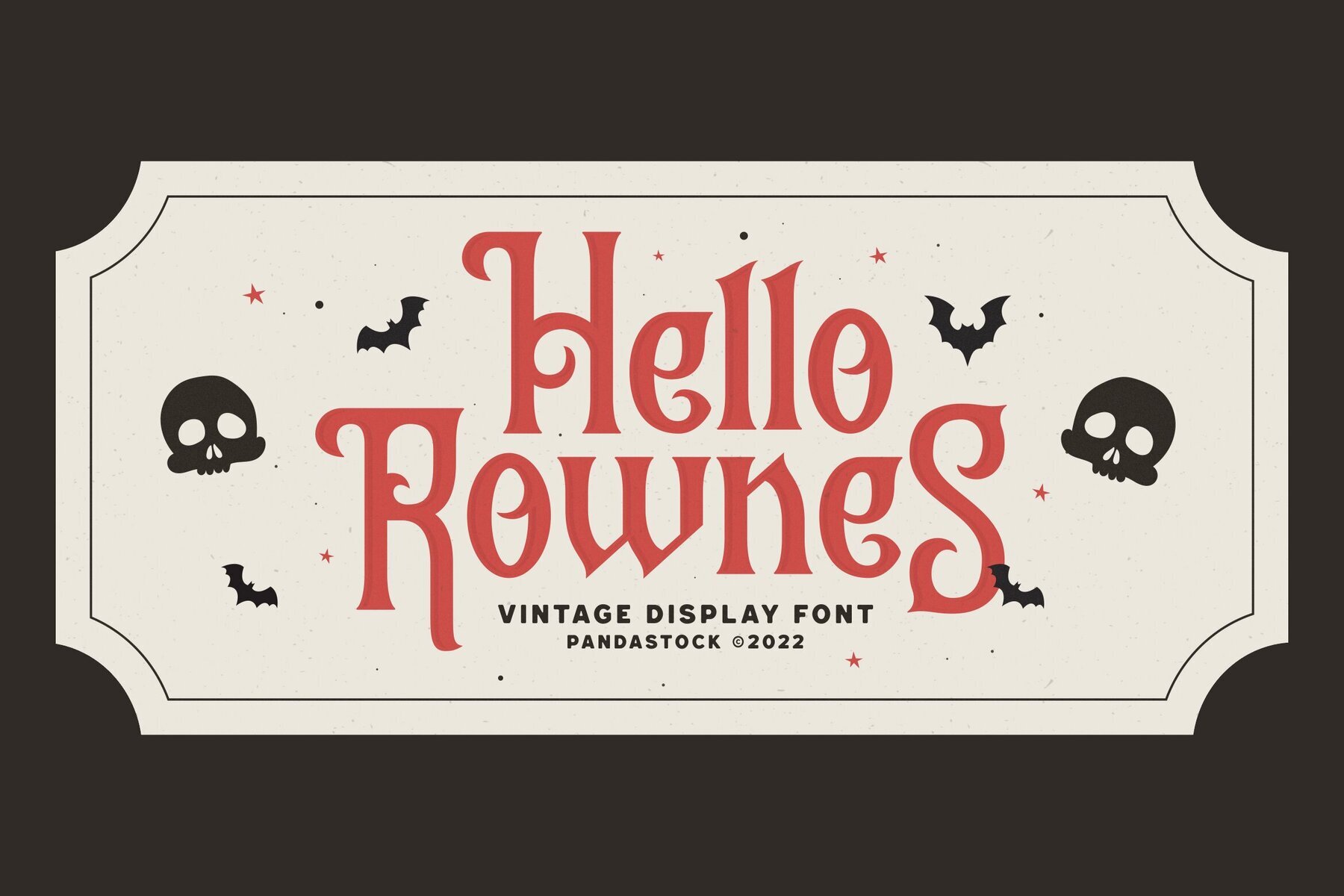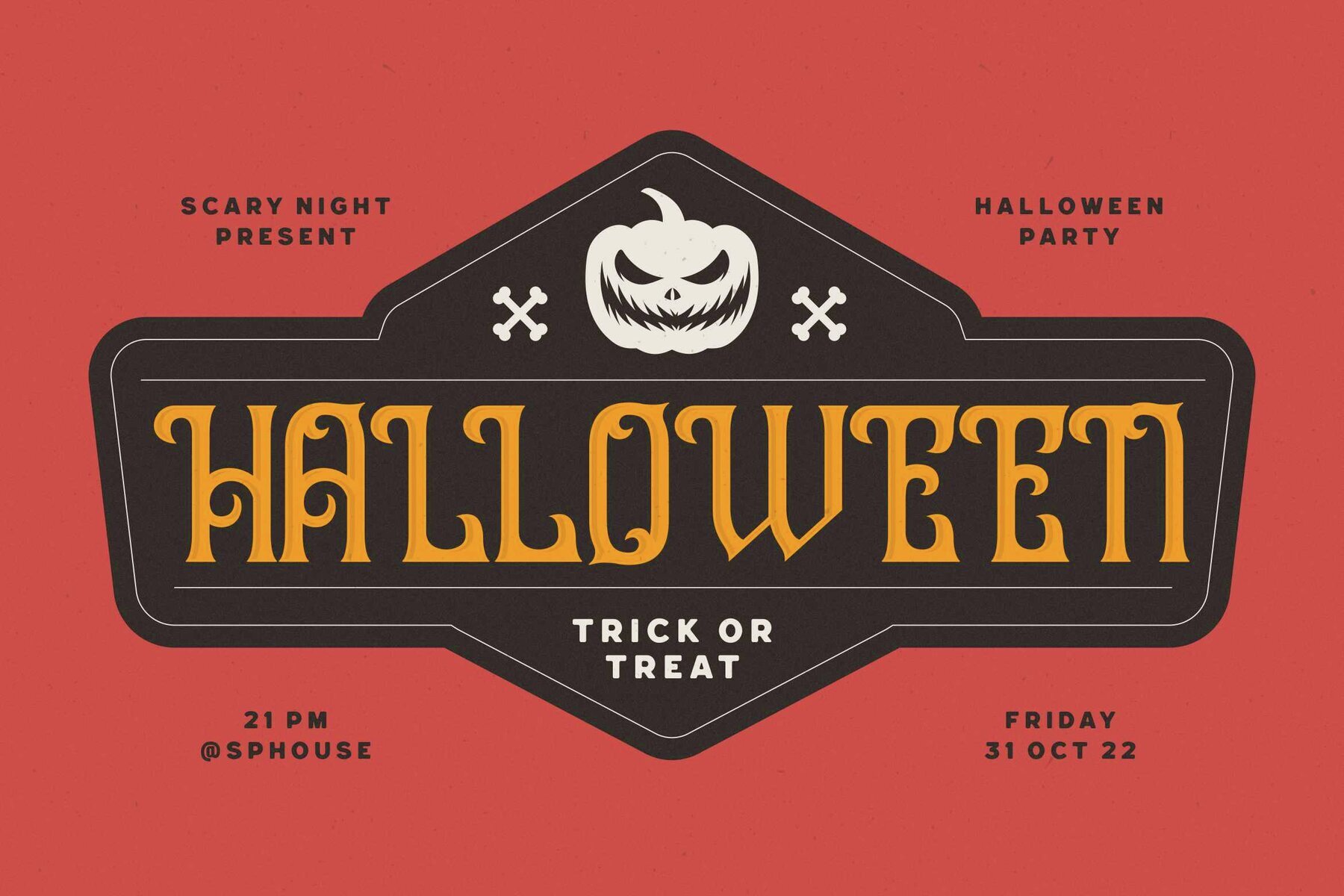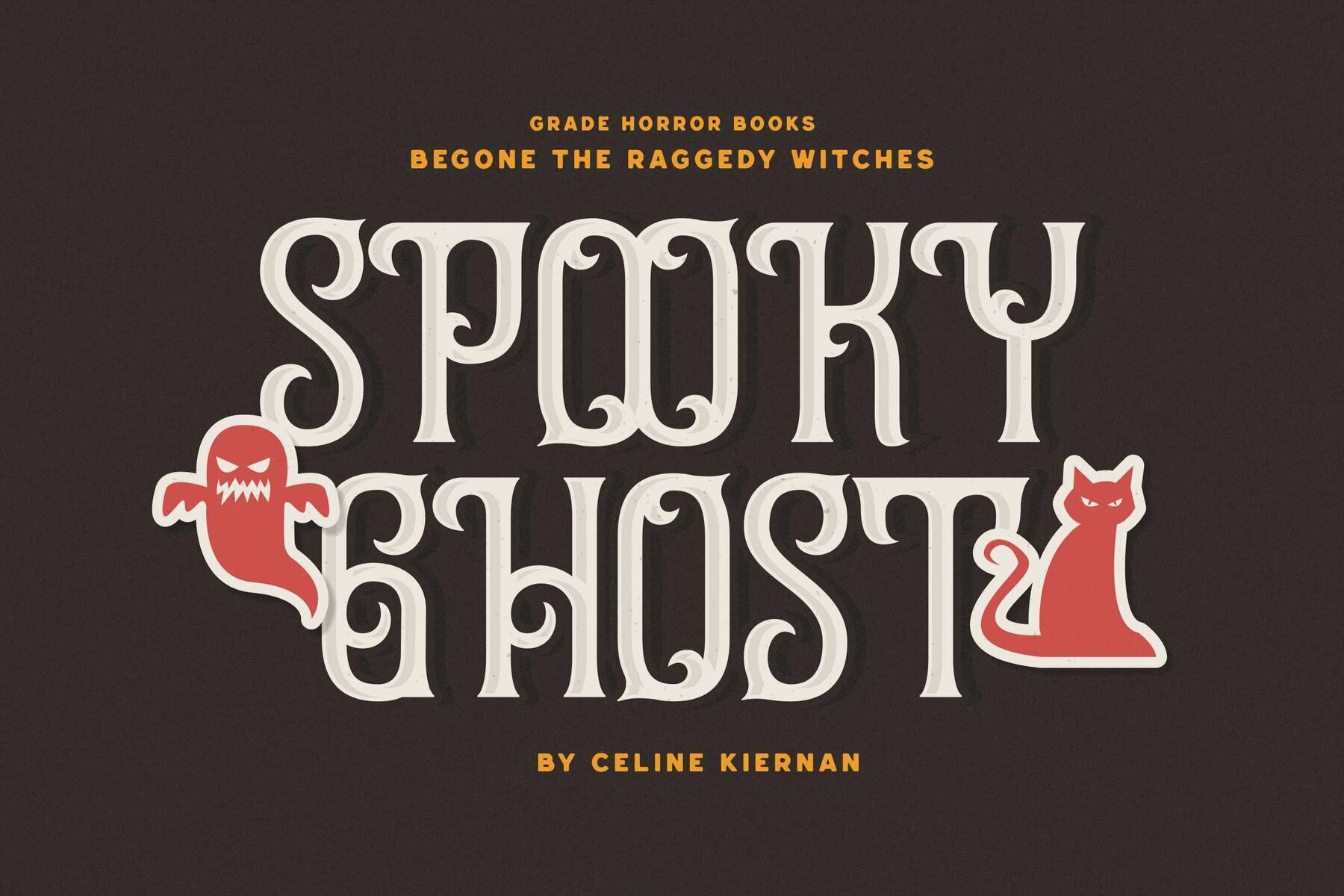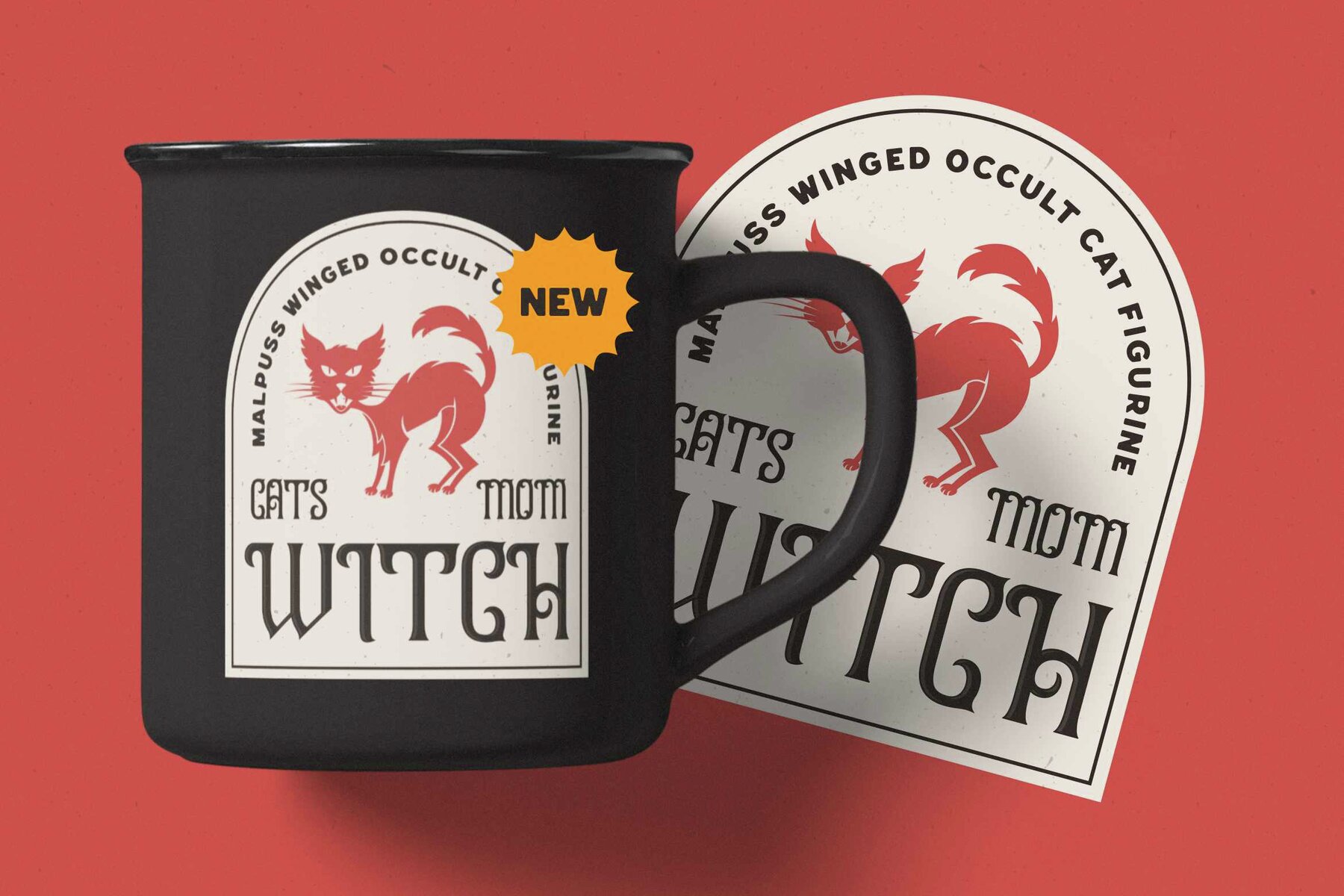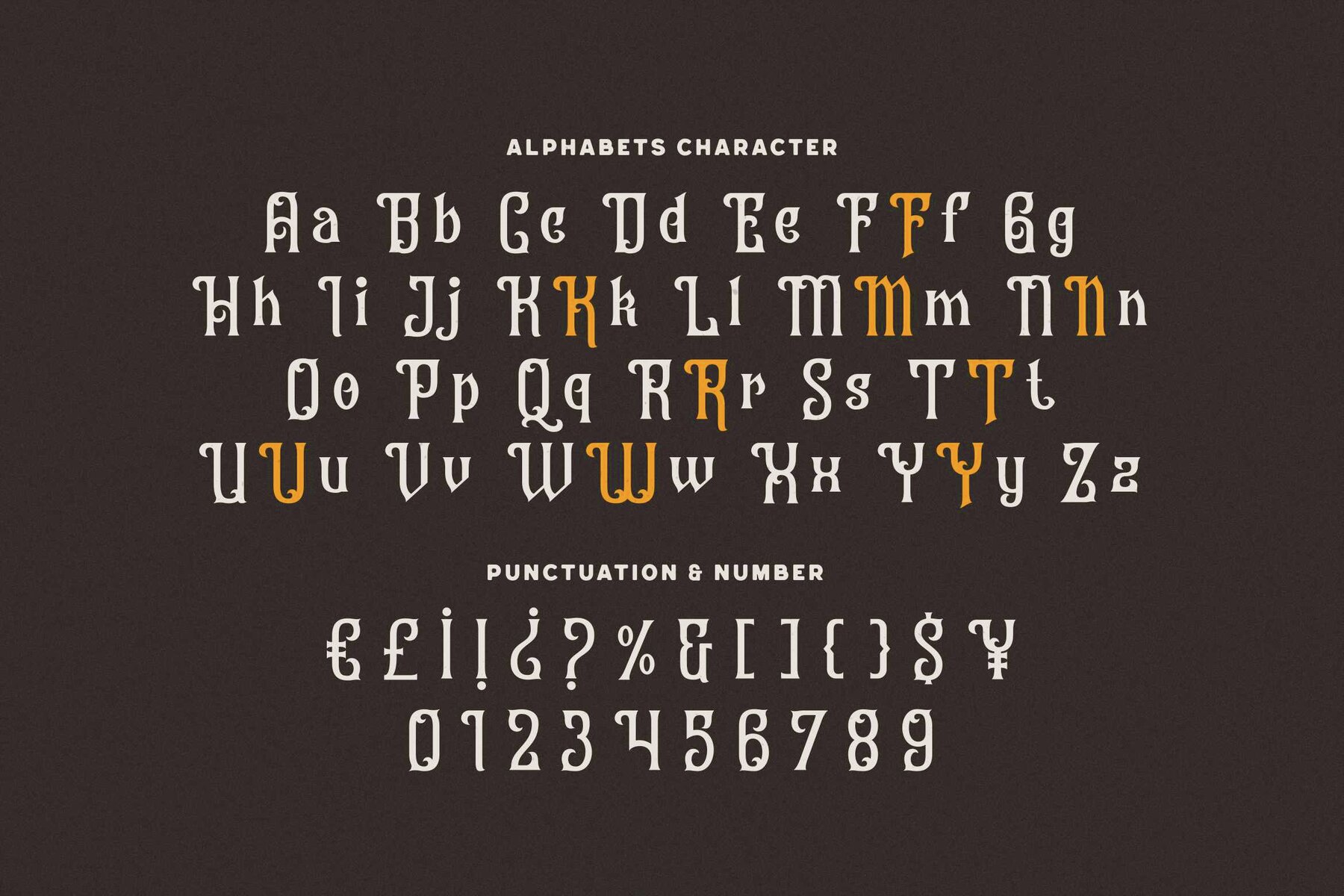
Hello Rownes Font
Hello Rownes Regular
Step into the world of gothic charm with Hello Rownes, a vintage horror font that artfully marries cheerfulness with a hint of spookiness. Drawing inspiration from classic gothic typography, it features tall, slender letterforms that are highlighted by exaggerated serifs and intricate ornamental swirls. This font brings together the elegance of old-style serif typography with playfully unique accents and curves to craft a handcrafted, decorative vibe. Whether you're aiming for a festive atmosphere or a mysterious allure, Hello Rownes has got you covered by ensuring your project stands out and captivates attention.Hello Rownes: Vintage Horror Font